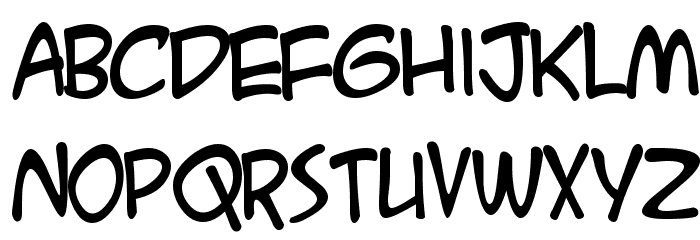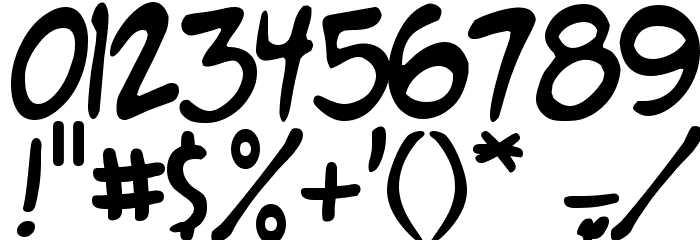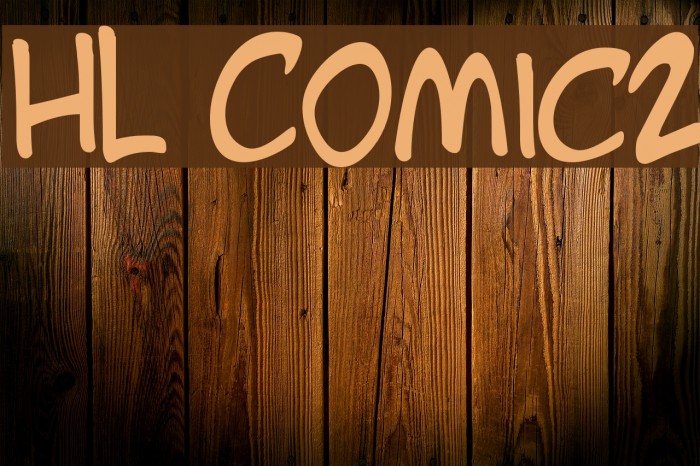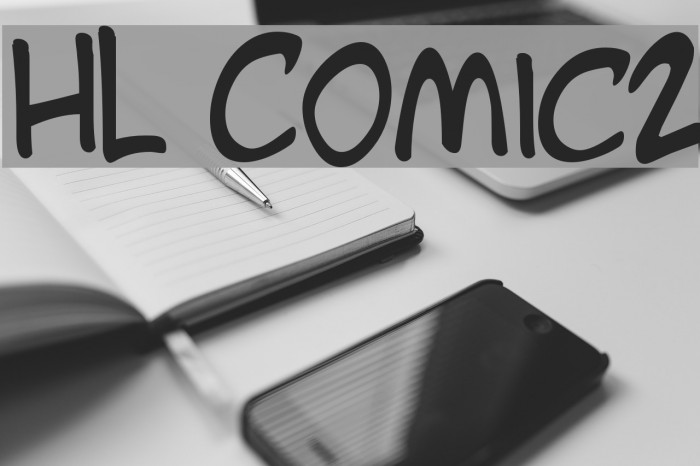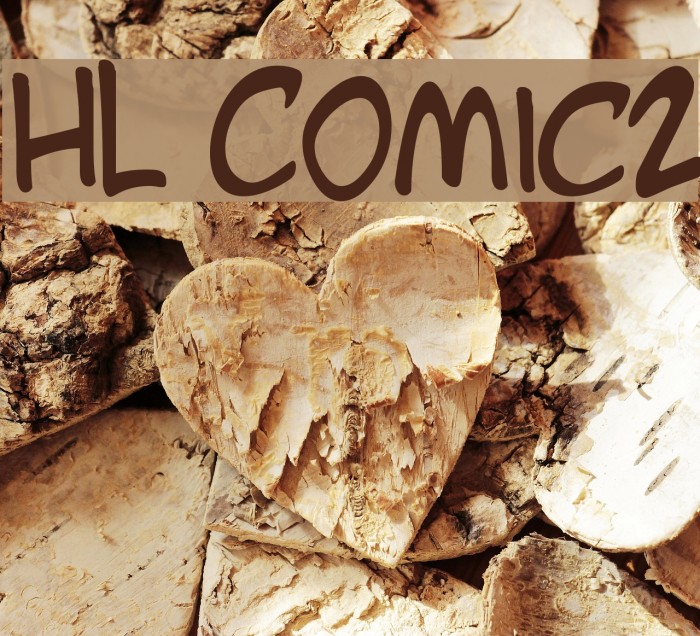
HL Comic2 Font
This playful and informal font features a handwritten style with rounded edges and a casual flow. The characters are slightly irregular, giving it a whimsical and friendly appearance. The uppercase and lowercase letters maintain a consistent style, with a slight slant that adds to its dynamic feel. The numerals and special characters are equally expressive, matching the overall aesthetic. This font is perfect for projects that require a fun and approachable look, such as comic books, children's books, or playful branding.
A playful, handwritten font with a casual and friendly style.
- Proposed Projects: Ideal for comic books, children's books, playful branding, and informal invitations.
- Overall Style: Playful
- Use Case: Headlines, Logos, Informal Text